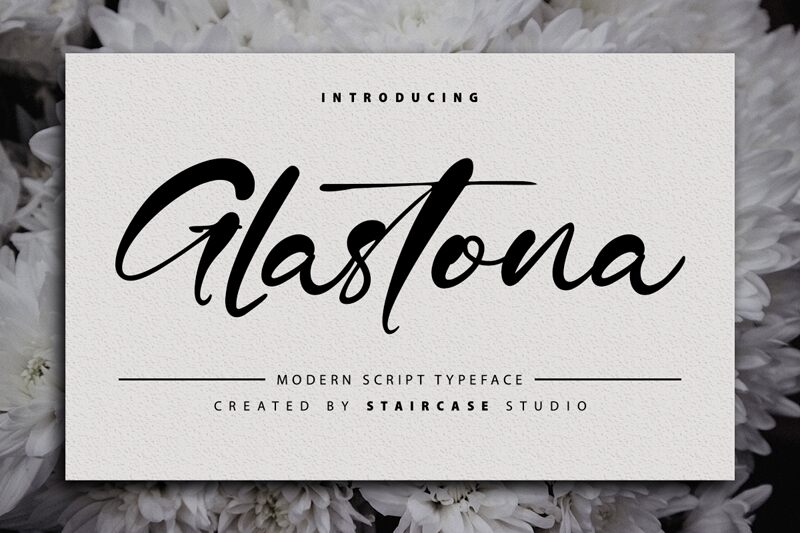
Glastona
Glastona, the exquisite calligraphy font by Staircase Studio, adds a touch of elegance to any project. Its graceful strokes and varied widths make it perfect for wedding invitations, greeting cards, and other formal occasions. But don't let its refined appearance fool you - Glastona can also lend a playful vibe to children's book covers or whimsical product packaging. With its timeless appeal and versatile style, Glastona is the go-to font for designers looking to add sophistication and charm to their work.